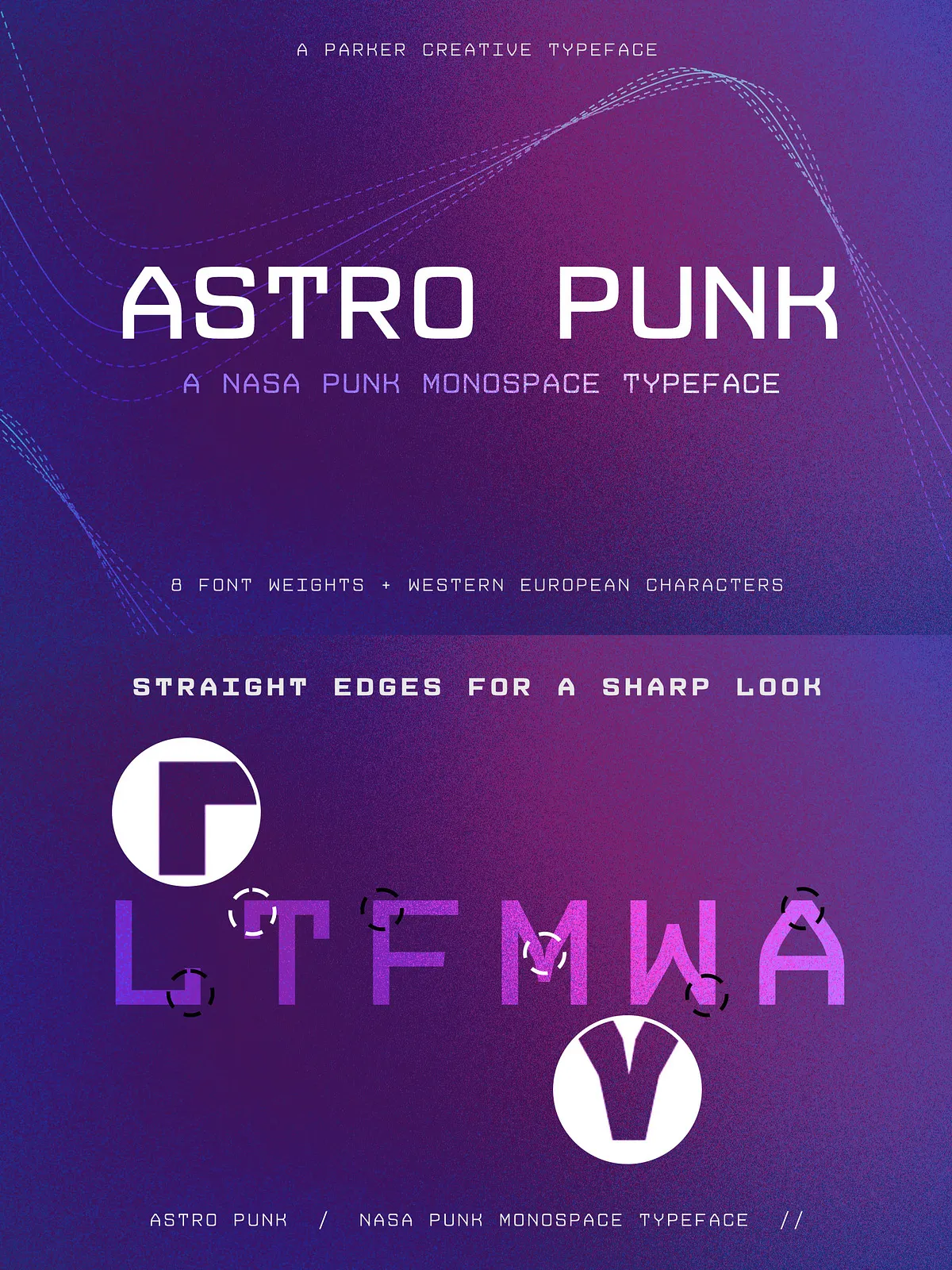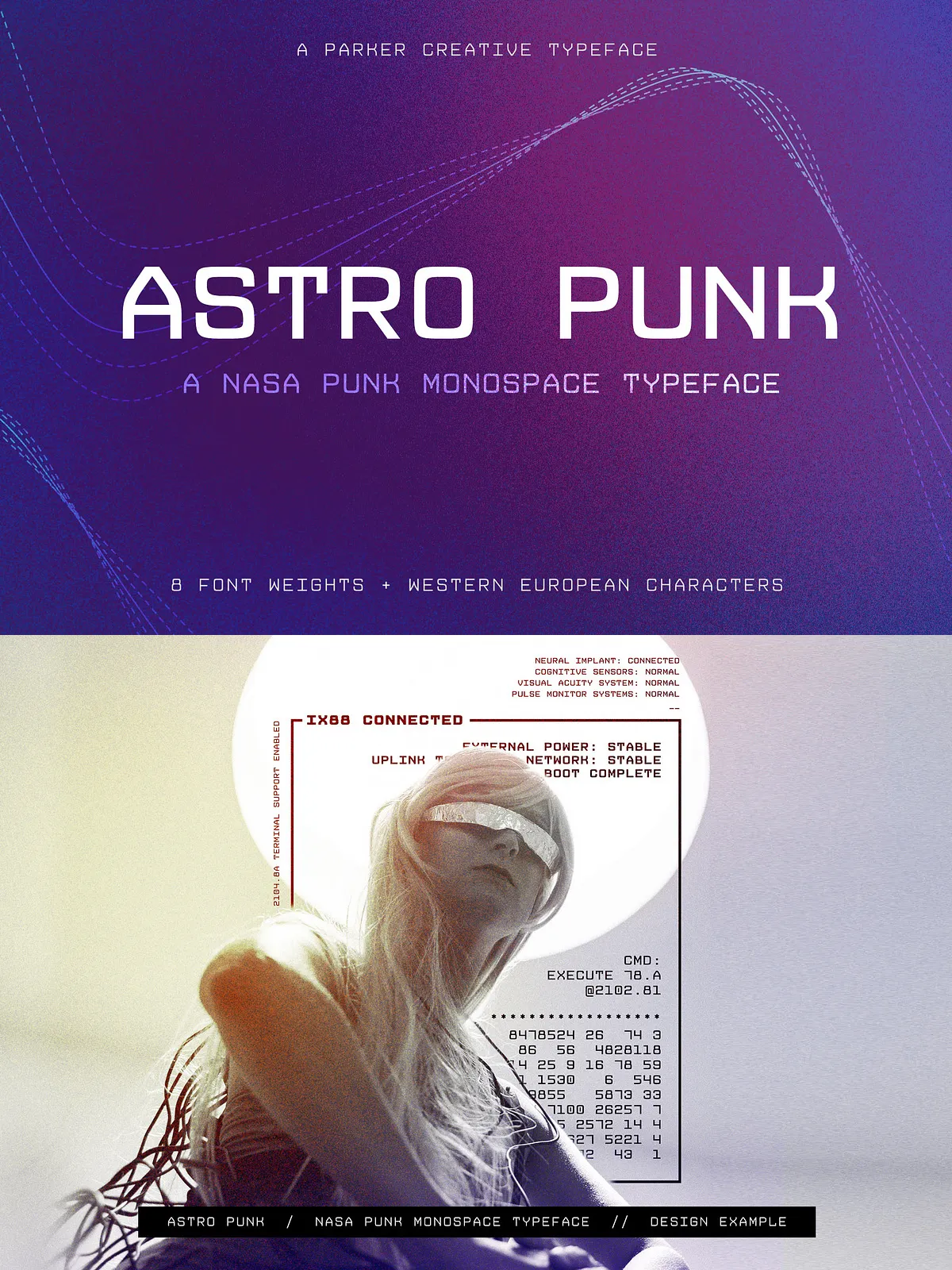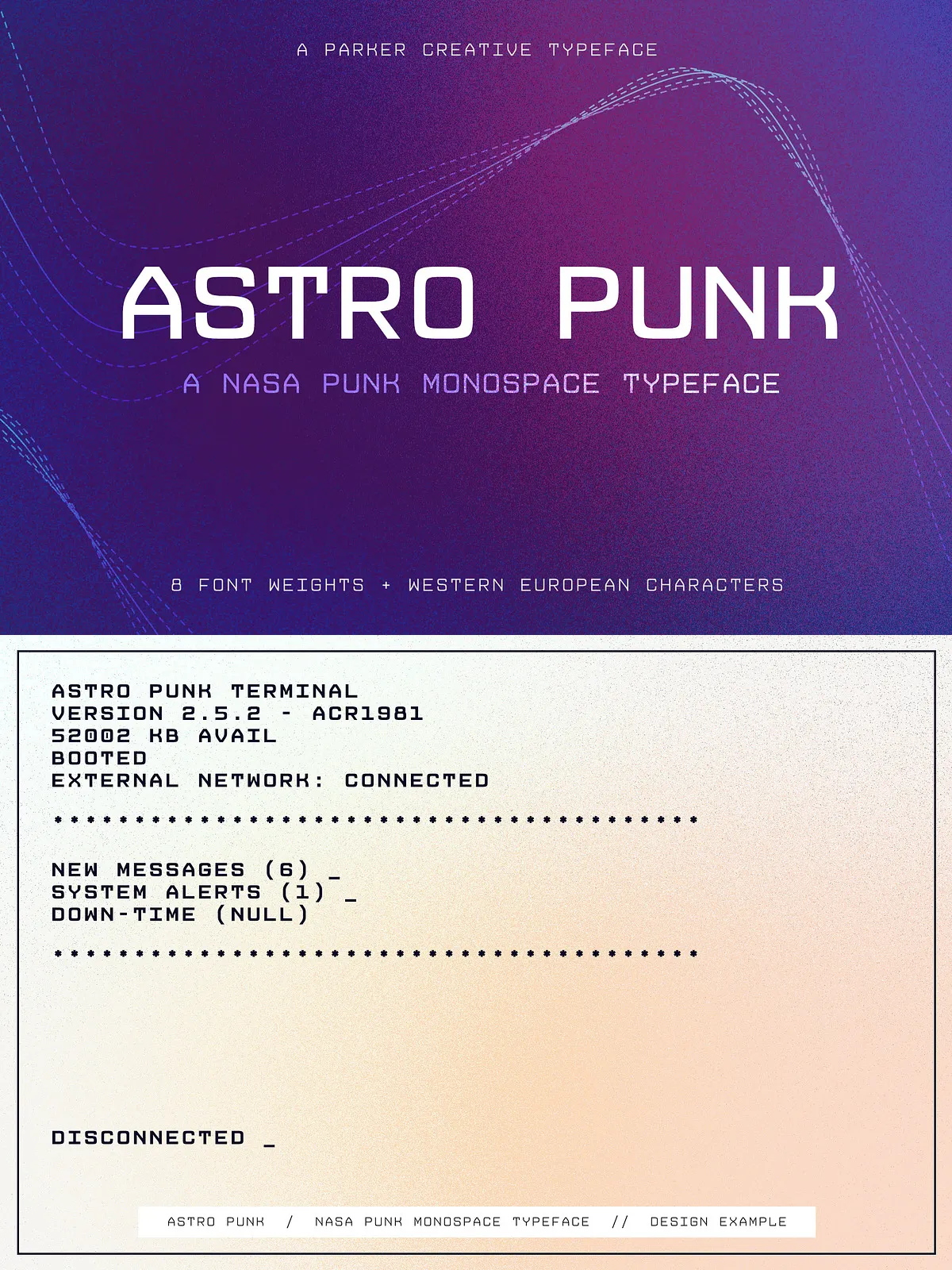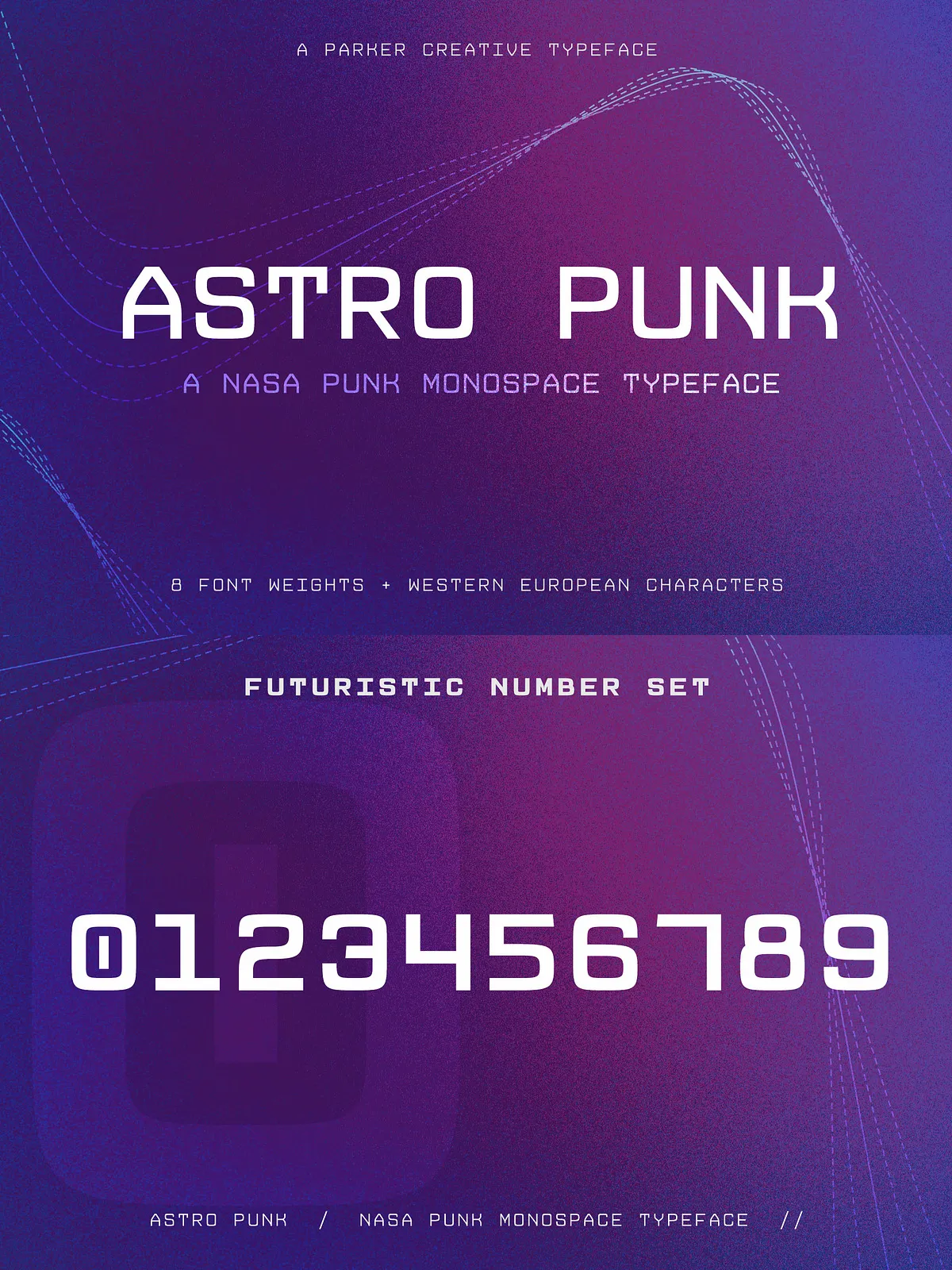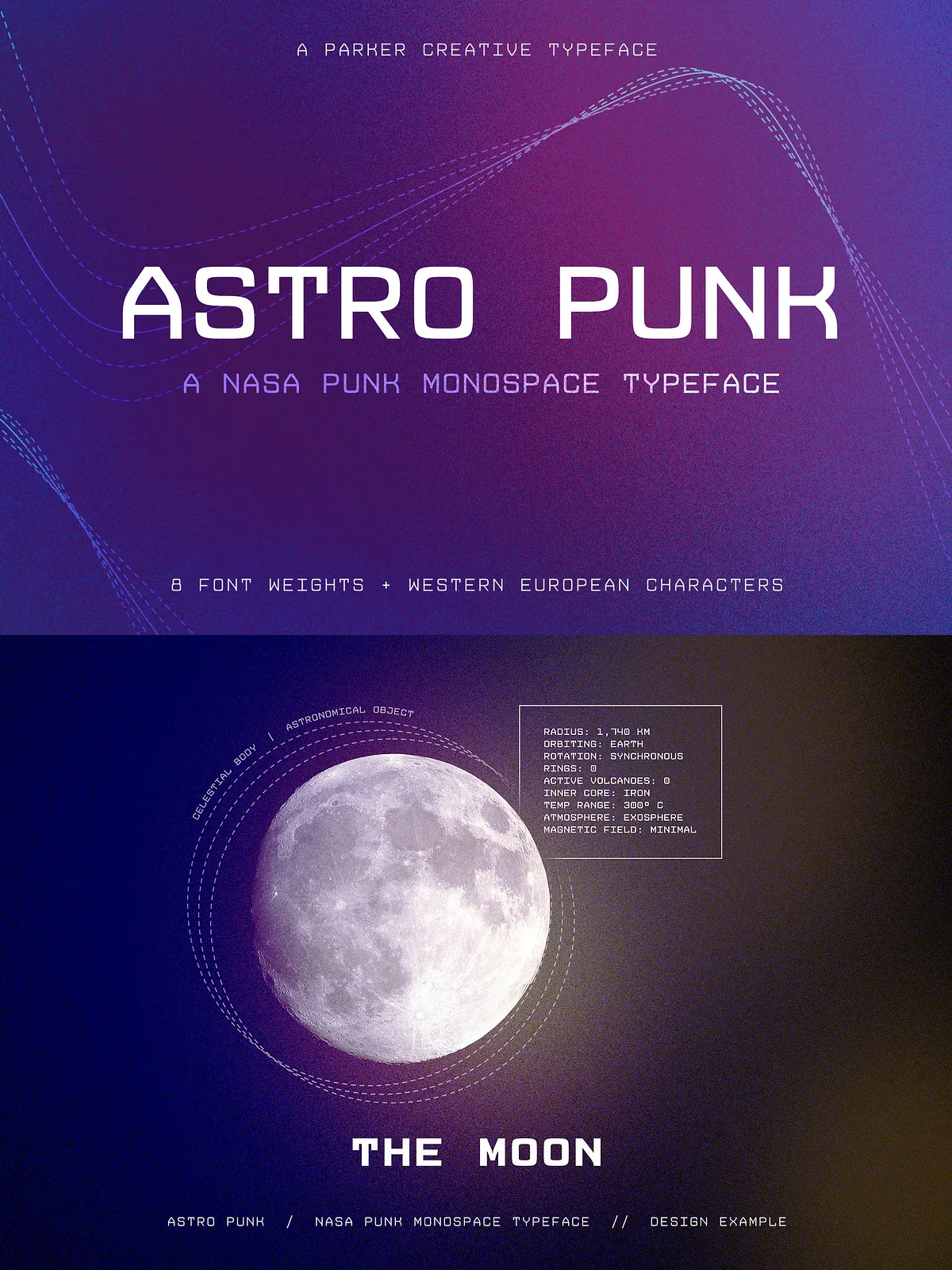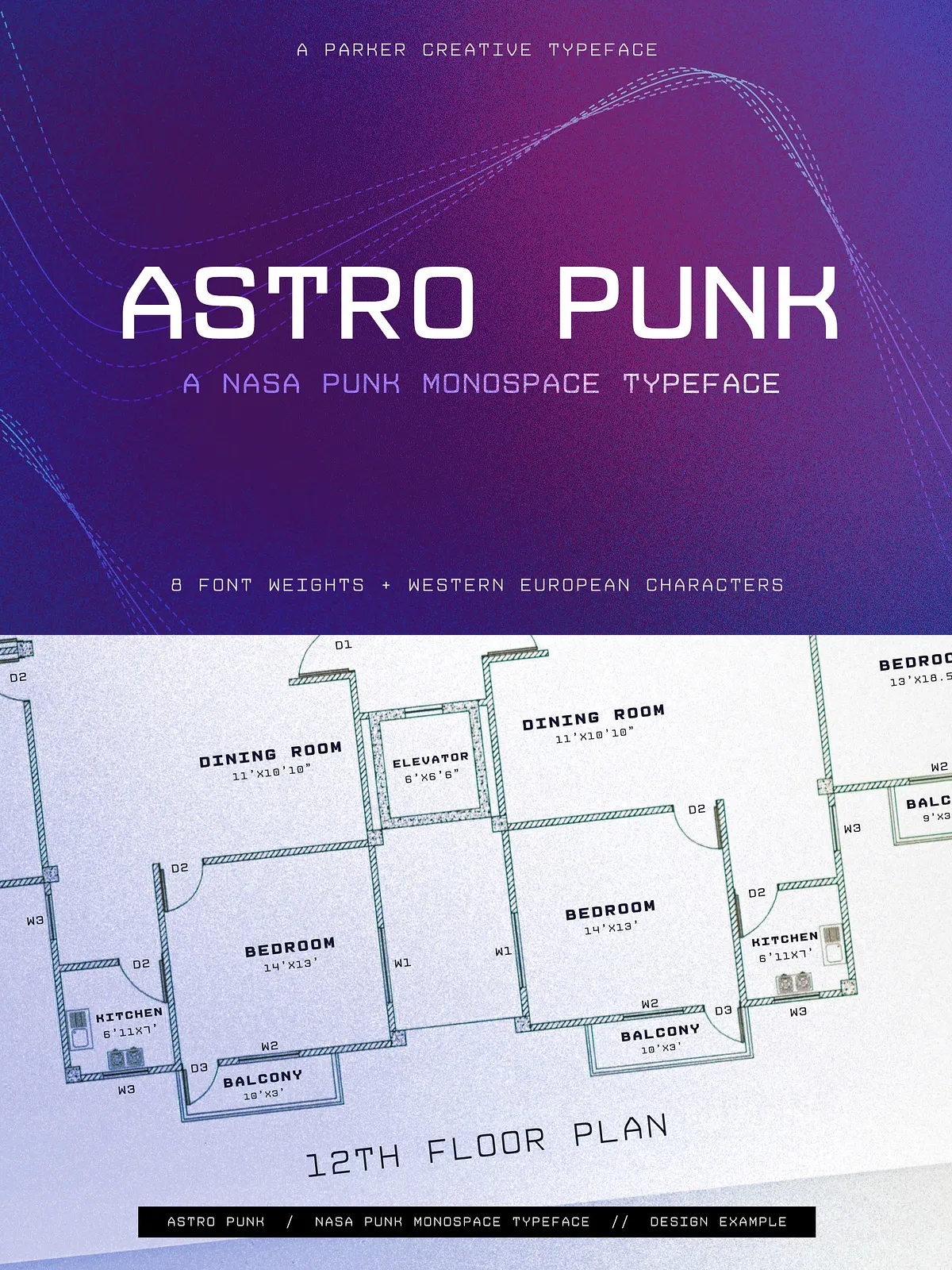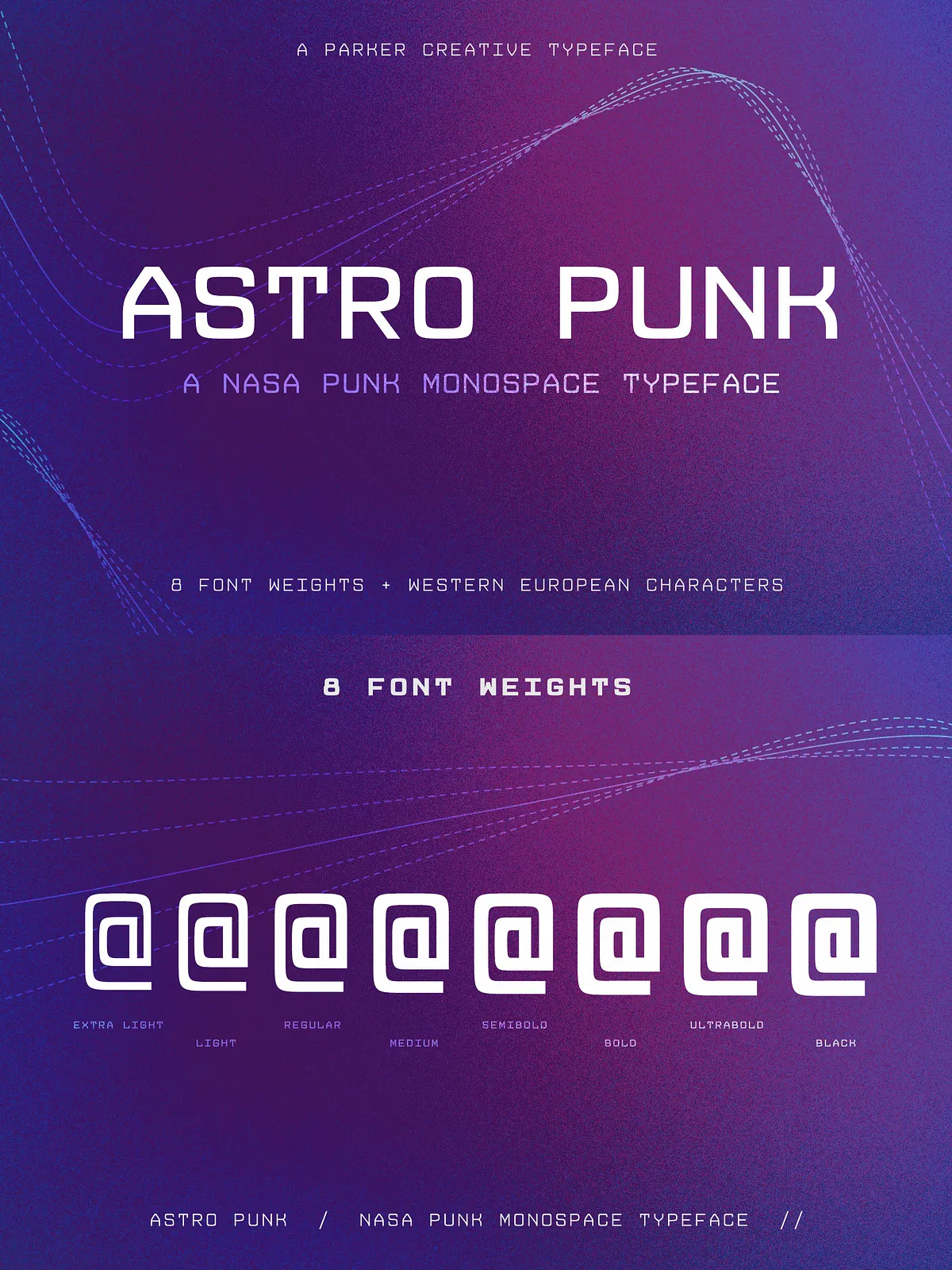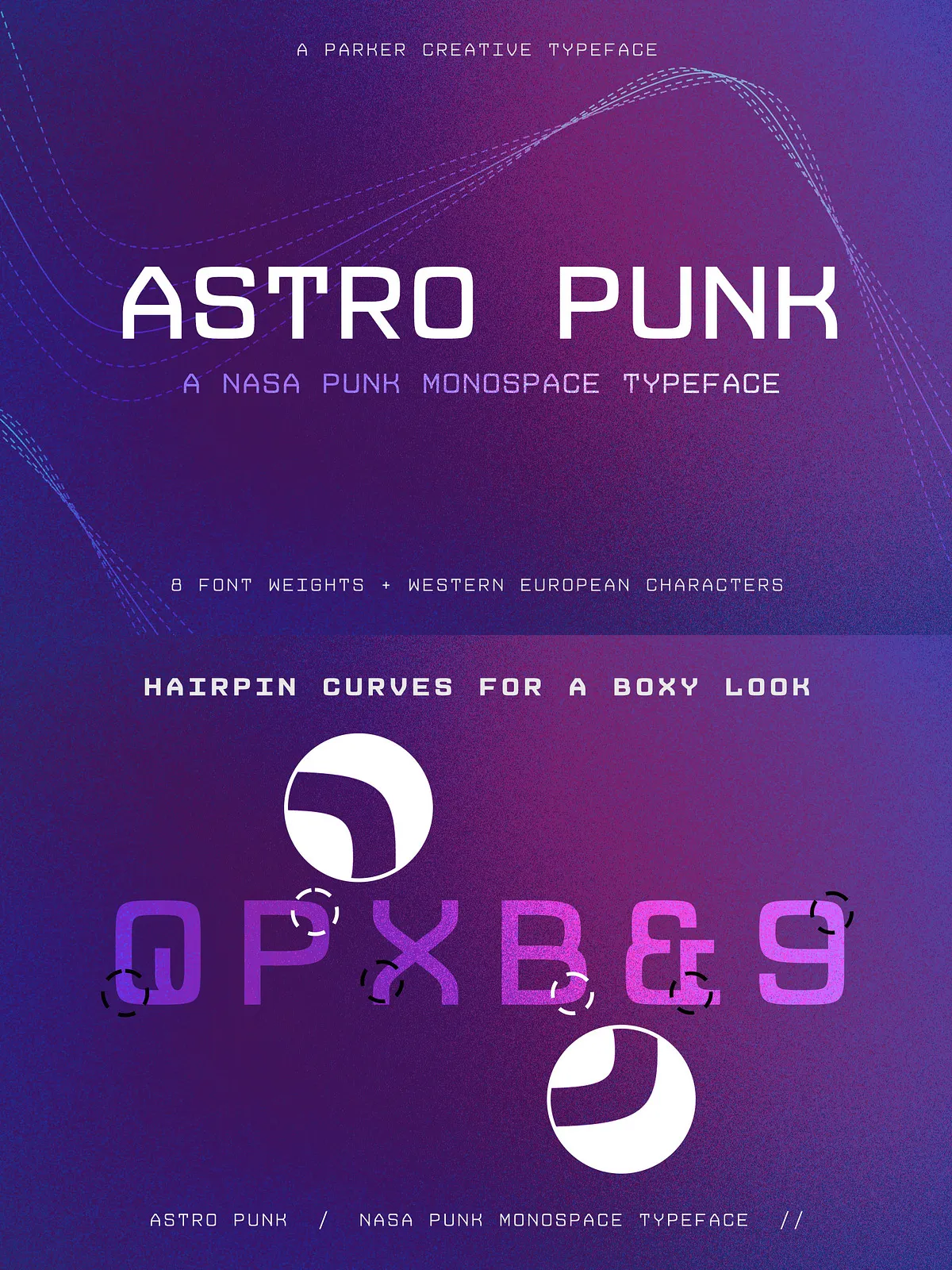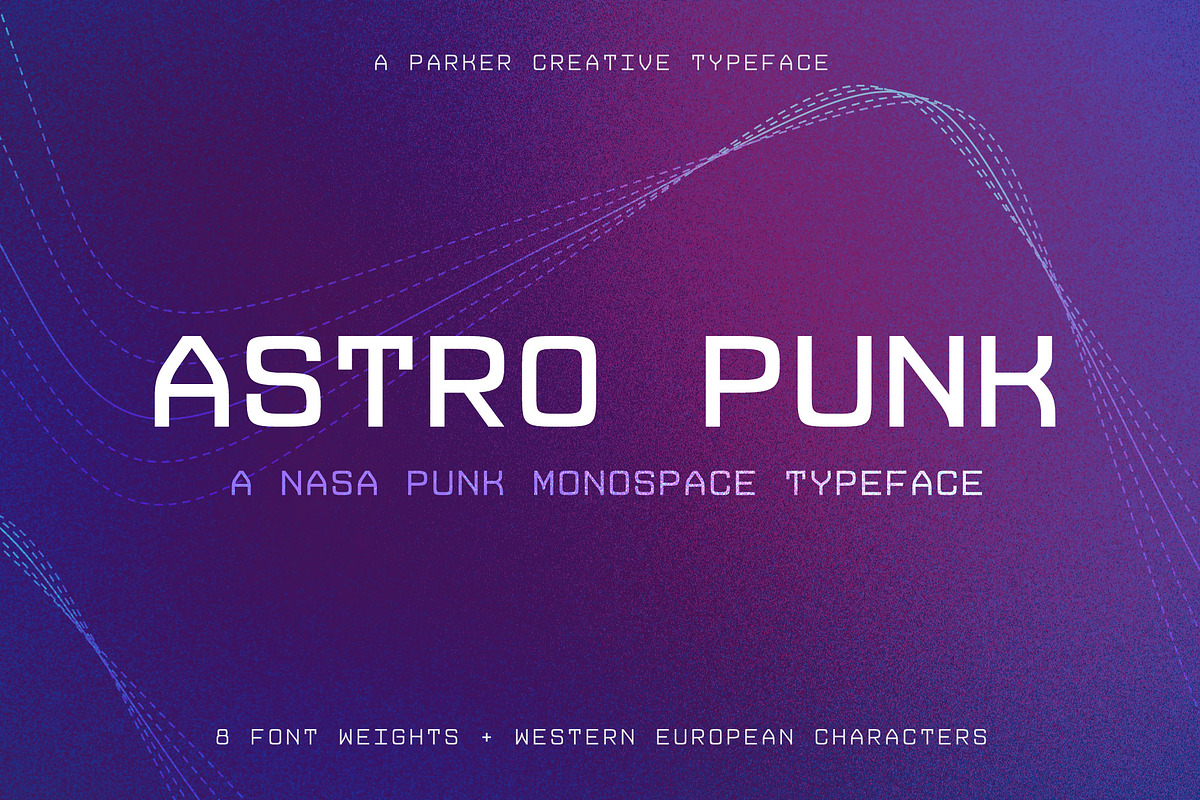
Astro Punk channels the raw, boxy aesthetic of early computer consoles used during the 1960s Space Race. This original, retro-futuristic monospace typeface delivers a low-resolution, technical look while preserving clear legibility and strong character distinction. Designers who need a typeface that reads like instrumentation, terminal displays, or technical schematics will find Astro Punk purpose-built for those tasks.
- True Monospace Metrics: Every character occupies the same horizontal space so text aligns precisely without kerning adjustments.
- Retro-Futuristic Aesthetic: Boxy, low-resolution shapes evoke vintage computer consoles and space program interfaces.
- Wide Range of Weights: Multiple, carefully balanced weights—mathematically instanced—ensure consistent detail across light to bold styles.
- Technical-Grade Numerals & Symbols: Highly stylized number sets and symbols support architectural drawings, schematics, and data displays.
- Western European Character Support: Includes essential Latin characters and punctuation for most Western European languages.
- Engineered for Precision: Designed for predictable rendering in design apps, CAD mockups, and code-like layouts.
Why Choose Astro Punk
Astro Punk performs where accuracy, alignment, and period-specific style matter. Use it to evoke the tactile, engineered feel of mid-20th-century computing while leveraging modern font production quality. The typeface balances nostalgia with technical rigor: shapes stay faithful to the retro inspiration while maintaining clarity at small sizes and robustness at display scale.
Practical Applications
- Architectural Documents & Construction Drawings: Rely on consistent monospace metrics for dimension tables, legends, and schematic annotations.
- Space-Themed Branding & Design: Use on packaging, posters, and event materials to create an authentic Space Race visual identity.
- Technical Interfaces & HUDs: Integrate into UI mockups, dashboards, and heads-up displays to achieve a retro-technical look.
- Editorial & Poster Typography: Apply to headlines and callouts that require bold, mechanical presence.
- Film, TV, & Game Graphics: Implement for onscreen console readouts, in-game terminals, or science-fiction set dressing.
Technical Details & Compatibility
Astro Punk ships as a professionally produced font family with multiple weights. The family is mathematically instanced to keep stroke contrast and spacing consistent across weights, preserving detail and legibility. Because it is a true monospace font, designers do not need to add kerning to achieve optical alignment—columns, tables, and stacked text will remain visually aligned by default.
- Character set: Western European Latin, numerals, punctuation, and extended symbol set for technical use.
- Weights: Multiple weights from light to bold, each balanced to preserve the typeface’s cubic character at every weight.
How to Use & Best Practices
Apply Astro Punk for monospace-driven interfaces, tabular data, and period-inspired branding. Use it in combination with a neutral sans for body copy to highlight headings and technical callouts. For maximum authenticity, pair Astro Punk with grid-based layouts, vector line-art, and muted space-age color palettes that complement its mechanical geometry.
Quick Tips
- Keep body text in a readable sans serif; reserve Astro Punk for headings, labels, and technical readouts.
- Test numerals and symbols in context (tables, dimension lines) to ensure the stylized numbers read clearly at intended sizes.